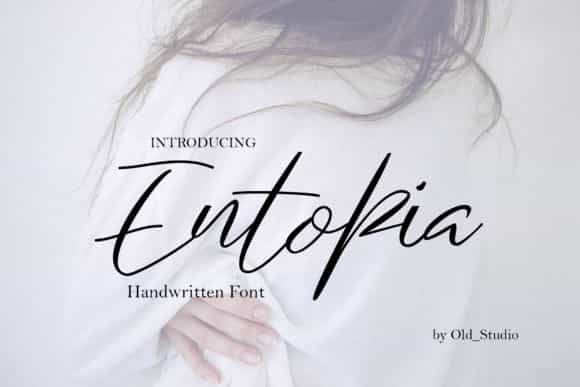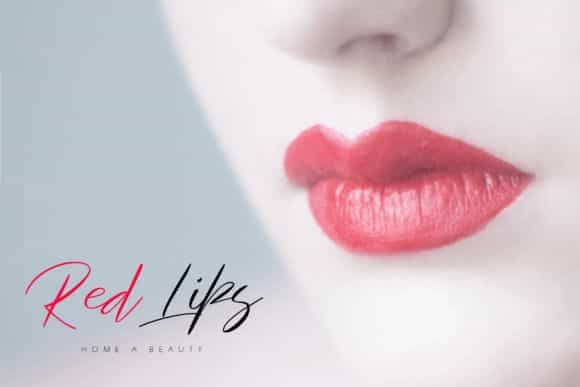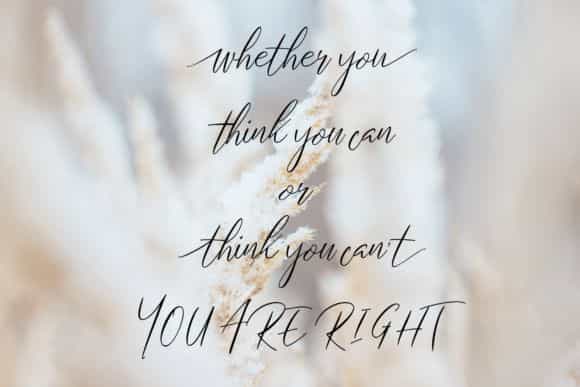
Entopia Font is a stylish calligraphy font that has the line of the text which changes from time to time, it’s smooth and elegant. Entopia is a lovely and modern handwriting script typeface. Entopia is a font that can be used in many languages and it has uppercase and lowercase letters, multilingual symbols, numerals, punctuation and ligatures.